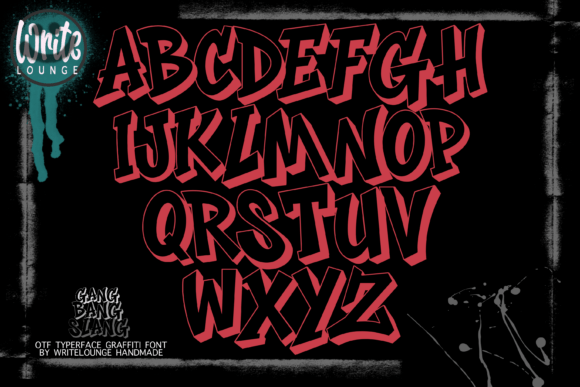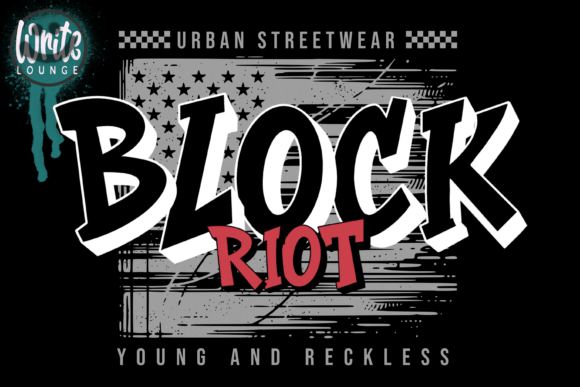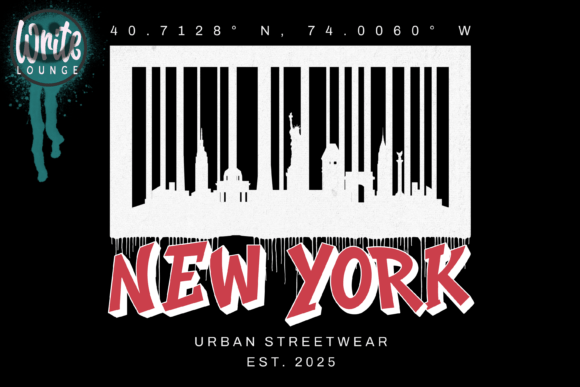
Unleash Your Creativity with Gang Bang Slang Font: The Ultimate Graffiti Display Typeface
Are you a designer or crafter looking for a bold and fearless typeface that captures the raw spirit of street culture? Look no further than Gang Bang Slang Font, a graffiti display font that embodies the style and power of urban graphics. With its heavy block letters, sharp angles, and striking 3D shadow effect, this typeface is perfect for creating eye-catching designs that stand out from the crowd.
The Authentic Urban Vibe of Gang Bang Slang
Gang Bang Slang Font is designed to bring the look and feel of real spray paint lettering into the digital world. Its strong outlines and dynamic flow make it the perfect choice for designers who want to create authentic urban graphics. Whether you’re designing for streetwear, hip hop branding, rap album covers, gaming graphics, posters, stickers, or logos, Gang Bang Slang combines style and power in one unique graffiti-inspired typeface.
Gang Bang Slang Font is versatile and can be used for a wide range of design projects, including:
- Streetwear & t-shirt designs: Create bold and eye-catching designs for streetwear and t-shirts that will make your brand stand out.
- Hip hop & rap cover art: Design stunning cover art for hip hop and rap albums that captures the energy and style of the music.
- Gaming & esports graphics: Add a touch of urban style to your gaming and esports graphics, including logos, posters, and social media content.
- Stickers, posters & logos: Create bold and striking stickers, posters, and logos that will grab attention and make your brand memorable.
- Urban social media content: Bring the streets to your social media content with Gang Bang Slang Font, perfect for creating engaging and shareable graphics.
Key Features of Gang Bang Slang Font
Gang Bang Slang Font has several key features that make it the ultimate choice for bold and fearless typography:
- Heavy block letters: The font features heavy block letters that give it a bold and striking appearance.
- Sharp angles: The sharp angles and pointed edges of the font add to its urban and graffiti-inspired feel.
- Striking 3D shadow effect: The 3D shadow effect gives the font a dynamic and eye-catching appearance.
- Strong outlines and dynamic flow: The font’s strong outlines and dynamic flow bring the look of real spray paint lettering into the digital world.
Why Choose Gang Bang Slang Font?
If you’re looking for a font that will add a touch of urban style and energy to your designs, Gang Bang Slang Font is the ultimate choice. Here are just a few reasons why:
- Authentic urban vibe: The font captures the raw spirit of street culture and urban graphics.
- Versatile: The font can be used for a wide range of design projects, from streetwear to gaming graphics.
- Bold and fearless: The font’s bold and striking appearance makes it perfect for creating eye-catching designs.
| Font Name | Gang Bang Slang Font |
| Author | Writelounge |
Gang Bang Slang Font is the ultimate graffiti display font for designers and crafters who want to add a touch of urban style and energy to their designs. With its heavy block letters, sharp angles, and striking 3D shadow effect, this typeface delivers an authentic urban vibe that makes every design stand out. Perfect for streetwear designs, hip hop branding, rap album covers, gaming graphics, posters, stickers, and logos, Gang Bang Slang combines style and power in one unique graffiti-inspired typeface. So why wait? Bring the streets to your design with Gang Bang Slang Font – loud, fearless, and full of underground energy.